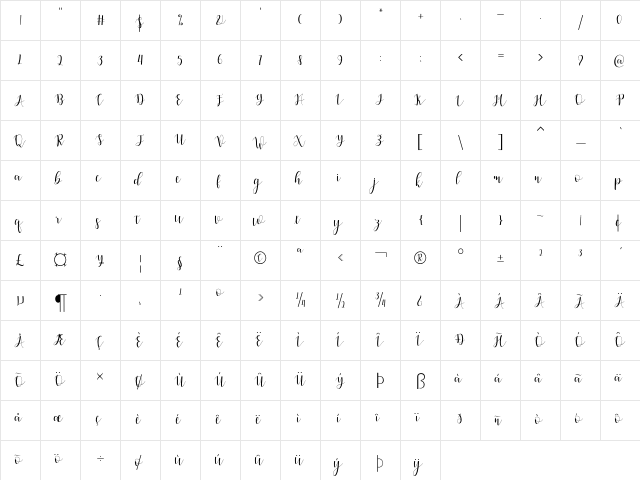
Amelisa Regular
Design Context for Amelisa Typeface
Amelisa is a composed and adaptable typeface that performs quietly and consistently across a wide range of design contexts.